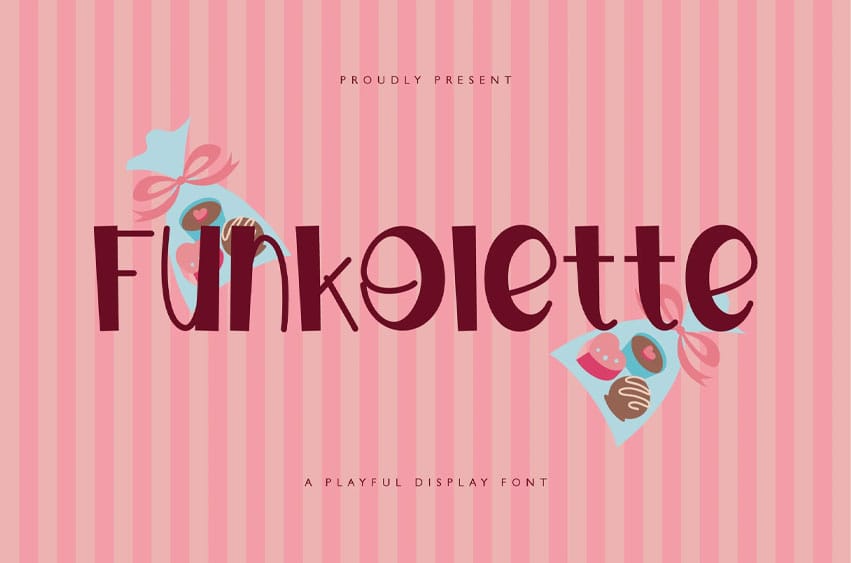
Funkolette Font is a playful, vibrant font that captures the essence of joy and lightheartedness. Its rounded, bubbly shapes and whimsical curves make it perfect for creating a fun and inviting atmosphere. Ideal for designs targeting a younger audience, casual branding, or projects in need of a lively and energetic feel, Funkolette brings a sense of movement and playfulness to any design.
Whether used for logos, posters, or packaging, it instantly adds a touch of charm and personality, making it an eye-catching and memorable choice.